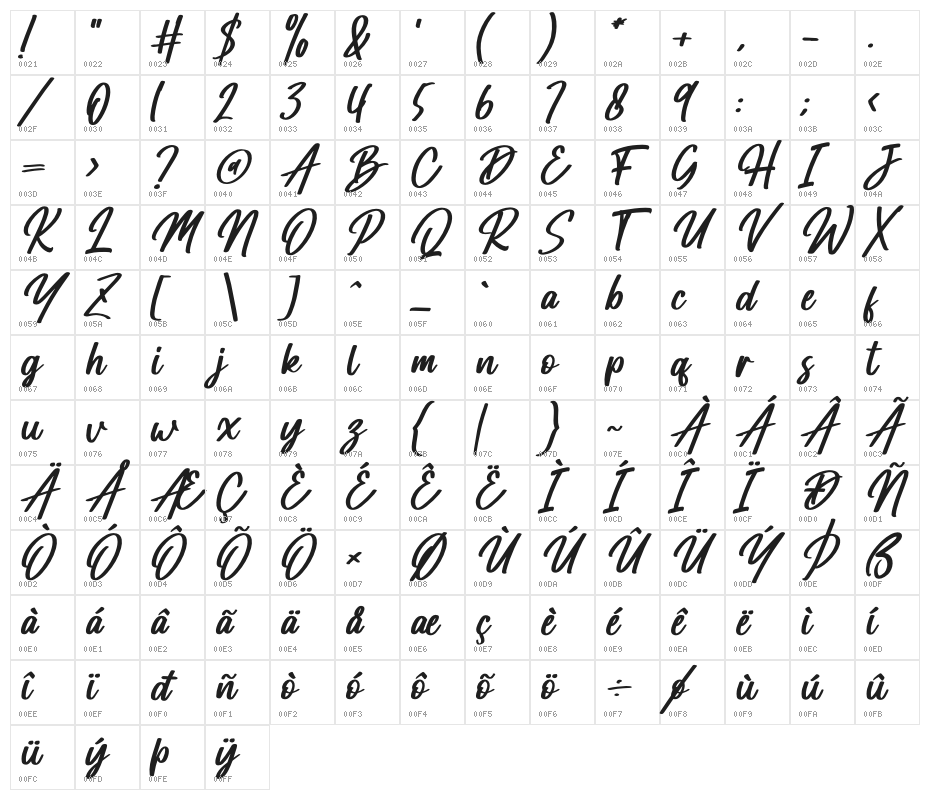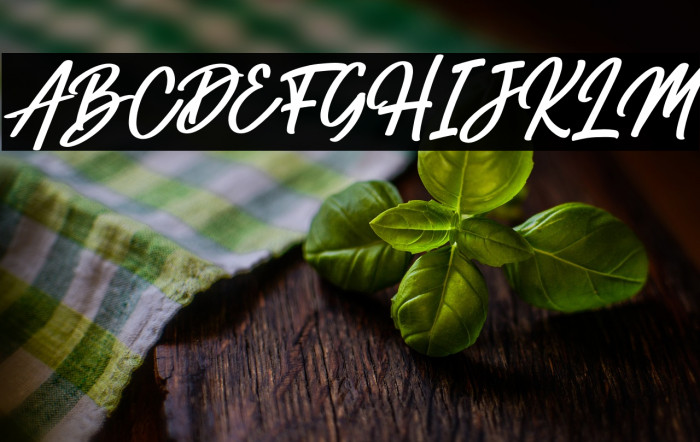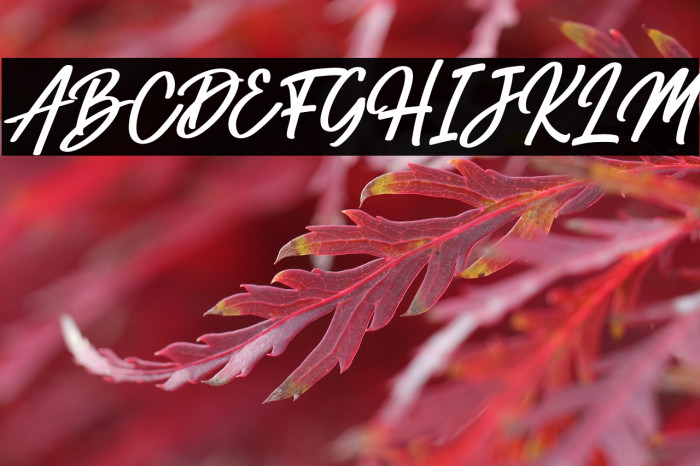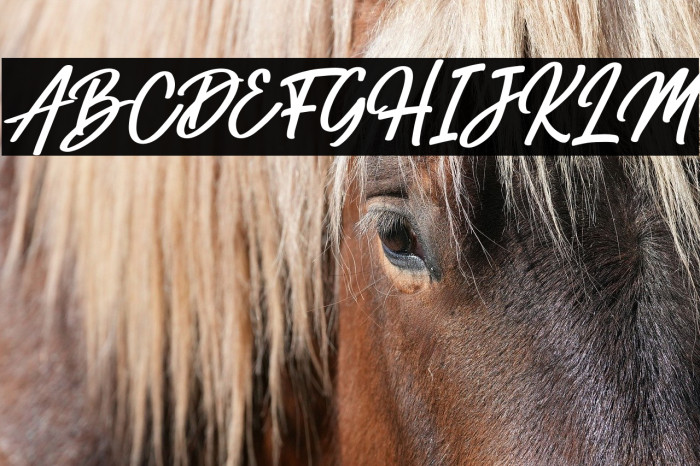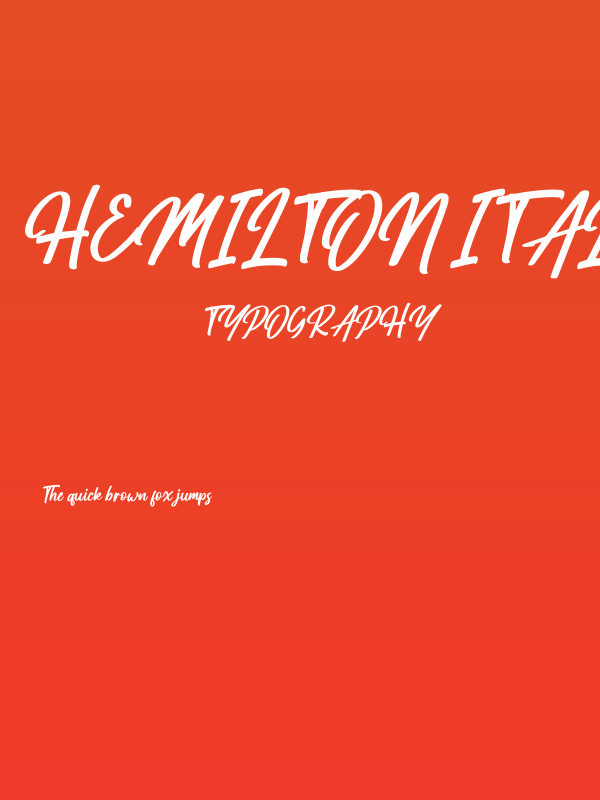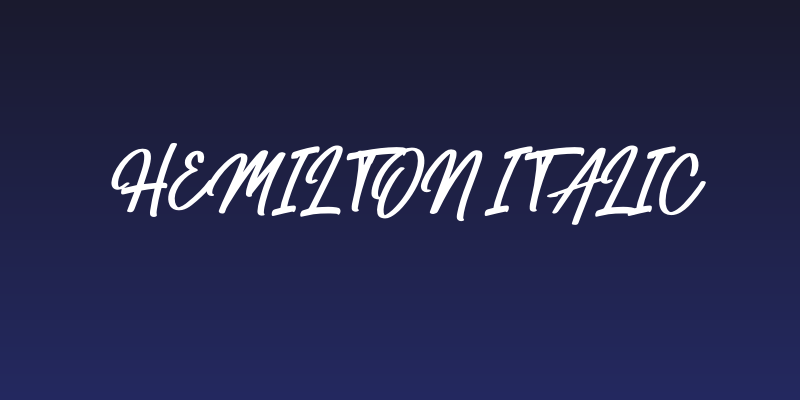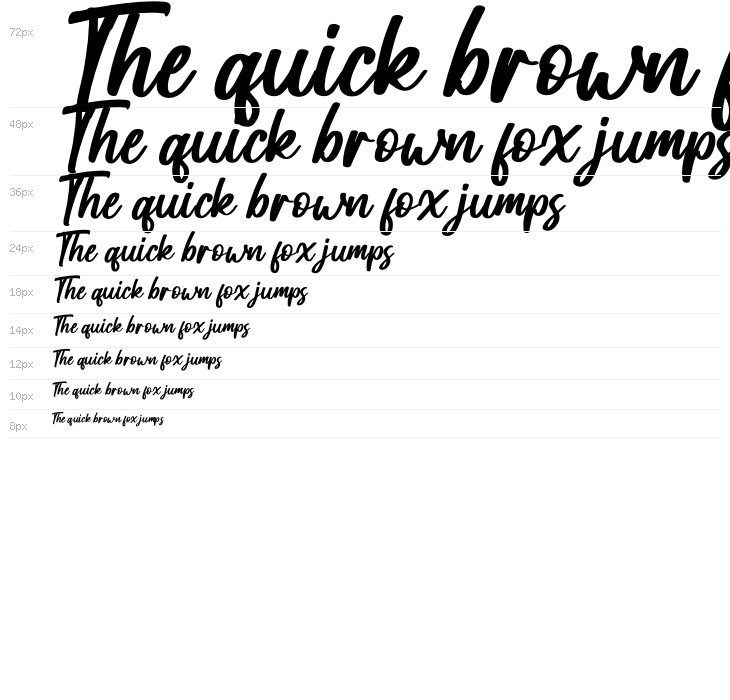
Hemilton Italic Font
Hemilton Italic Description
This font features a dynamic and fluid script style, characterized by its elegant, flowing lines and cursive letterforms. The uppercase letters are bold and slightly slanted, giving a sense of movement and sophistication. The lowercase letters maintain a consistent flow, with smooth connections between each character, enhancing the script's readability. The numerals are distinct and maintain the same cursive style, ensuring uniformity across all characters. Special characters are integrated seamlessly, maintaining the overall aesthetic of the font. This script is ideal for projects that require a touch of elegance and personality.
| Overall Style | Elegant, Modern |
| Proposed Projects | Ideal for wedding invitations, branding, logo design, and elegant stationery. |